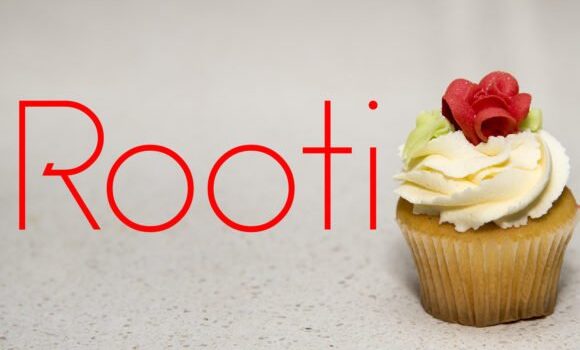
rooti
Rooti Font – Free Download Introduction to Rooti Font Rooti is Modern and elegant sans serif font with a light feel. 📸 Preview Gallery 3 images 📌 Product Name Rooti Font 👤 Author da_only_aan 📂 Category Explore ⬇️ Download Rooti